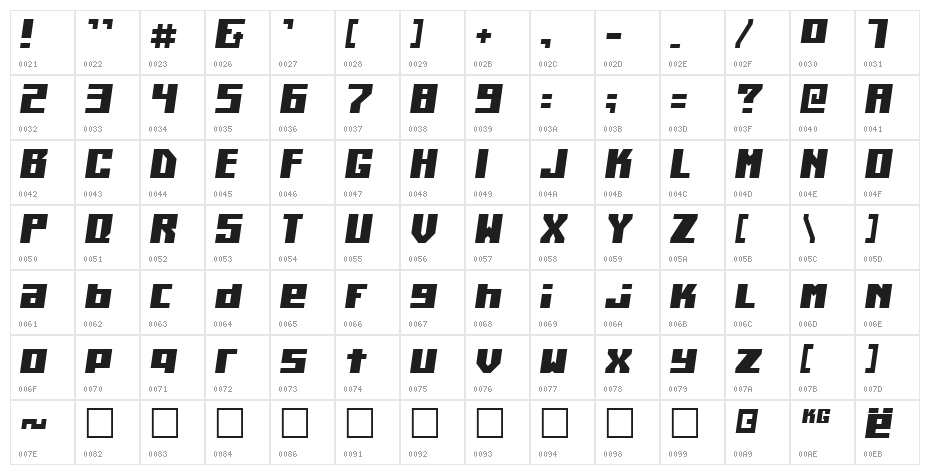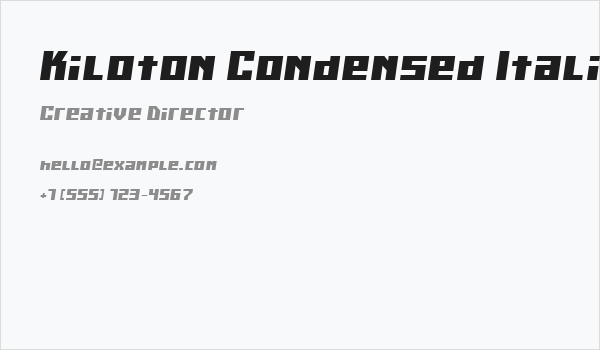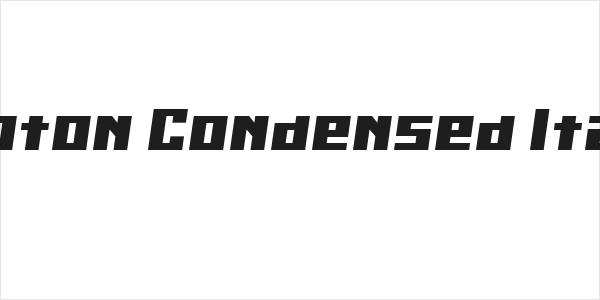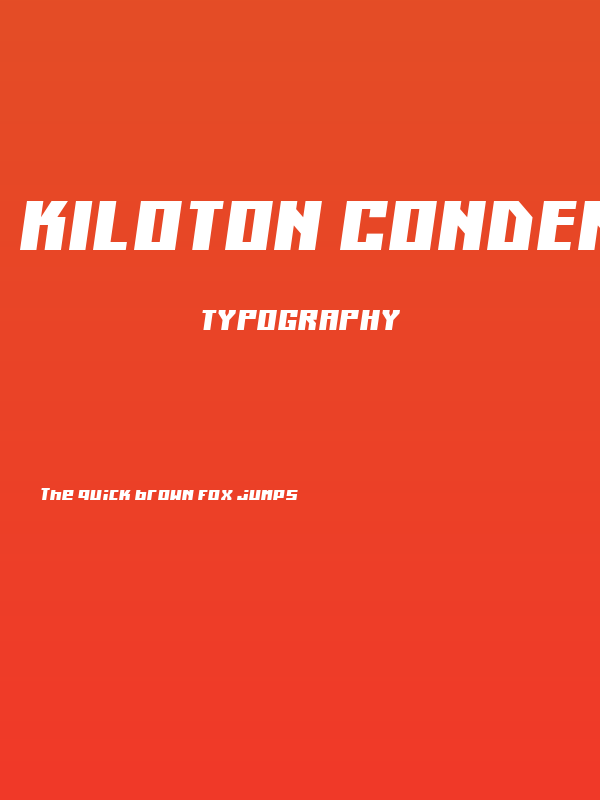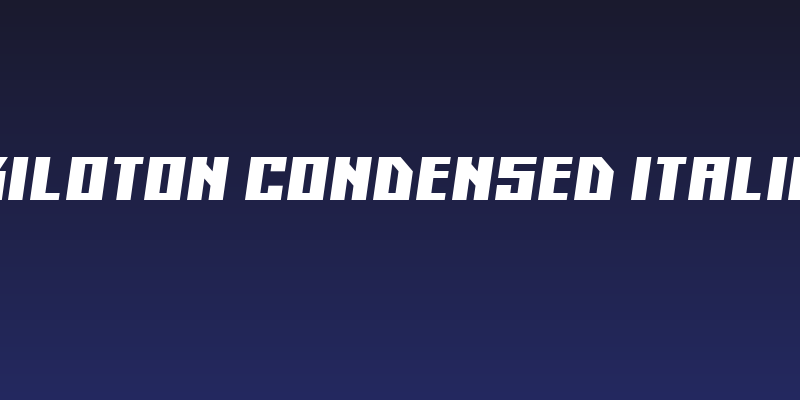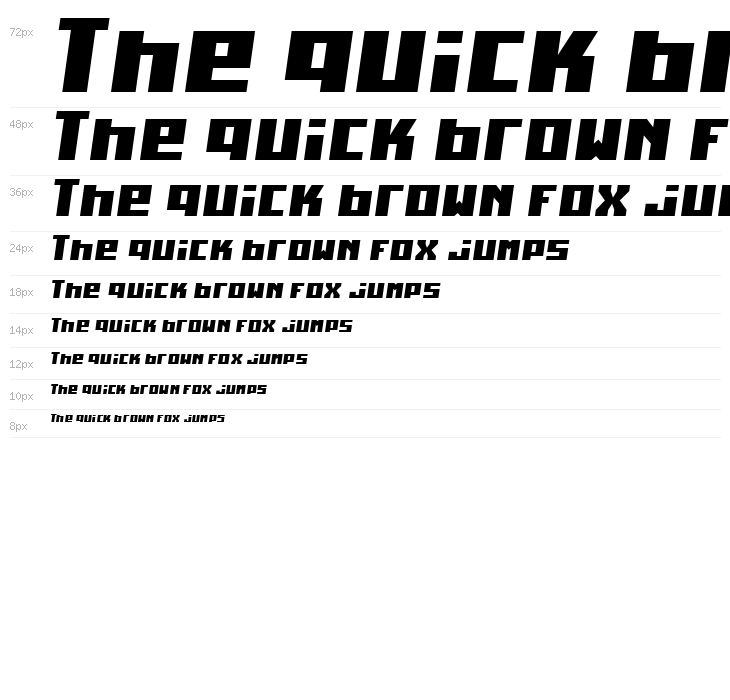
Kiloton Condensed Italic Font
Kiloton Condensed Italic Description
This font features a bold and dynamic style with a condensed and italicized form. The characters are angular and geometric, giving a modern and edgy appearance. The uppercase and lowercase letters maintain a consistent slant, enhancing the italic effect. The numbers and special characters follow the same stylistic approach, ensuring uniformity across all glyphs. The overall design is striking and impactful, making it suitable for attention-grabbing headlines and titles. The condensed width allows for efficient use of space without compromising readability.
| Proposed Projects | Ideal for sports branding, dynamic posters, modern logos, and edgy editorial design. |